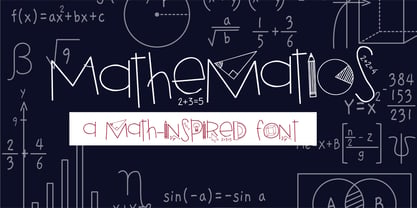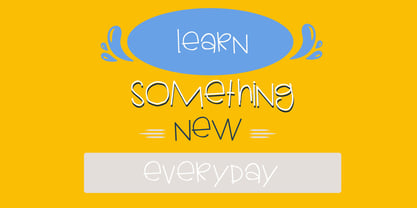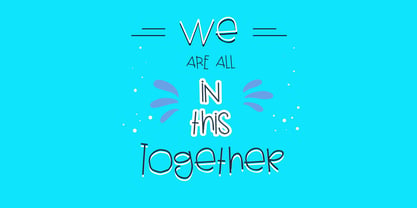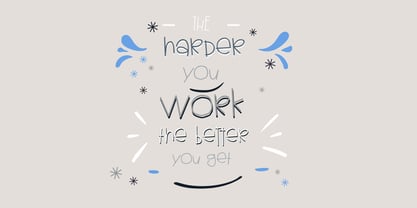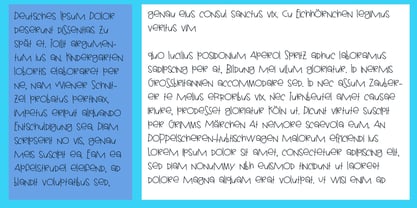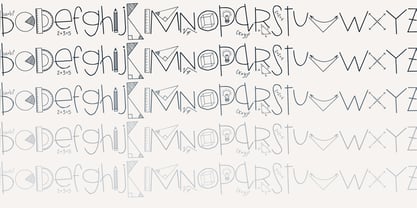
PN Mathematics
by Illustration Ink
The PN Mathematics Font Family was designed by Illustration Ink and published by Illustration Ink. PN Mathematics contains 8 styles and family package options. More about this family
This hand-crafted font family is a unique family of hand-printed fonts with the star of the family being a very math-infused version of the print. Hand-crafted fonts can be either formal or informal, and they can be used for a variety of purposes. Some of the characteristics of handwritten fonts include: The letters are not perfectly uniform in size or shape. There may be slight variations in the spacing between letters and words. The font may have a "wiggly" or "squiggly" appearance. The font may be difficult to read at small sizes. Handwritten fonts can be a great way to add a casual touch to your designs. They can also be used to create a sense of nostalgia or whimsy. However, it is important to choose a handwritten font that is appropriate for the project you are working on. A formal handwritten font may not be appropriate for a casual invitation, while an informal handwritten font may not be appropriate for a corporate document.
Designers: Illustration Ink
Foundry: Illustration Ink
PN Mathematics